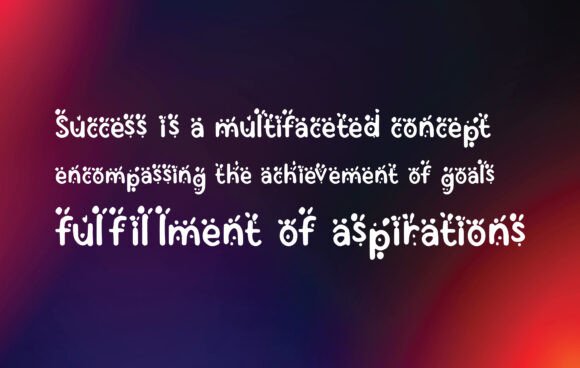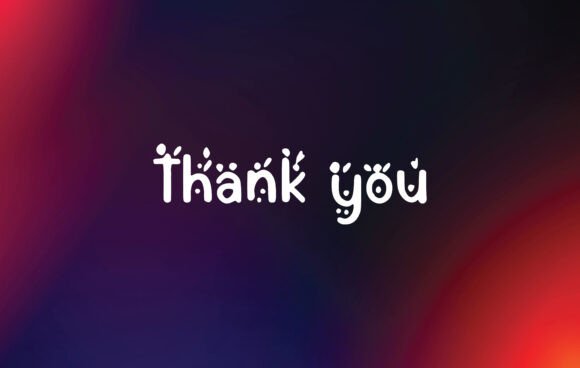
Introducing Heliconia Font: Elevate Your Creative Projects with Style and Versatility
In the world of typography, a great font can make all the difference in elevating your creative projects from ordinary to extraordinary. If you’re a designer, crafter, or DIY enthusiast looking for a font that combines style, versatility, and readability, look no further than Heliconia Font. This beautifully crafted font is designed to become a go-to favorite in your collection, offering the perfect blend of aesthetics and functionality to enhance any project.
A Font for Every Creative Need
Heliconia Font is incredibly versatile, making it suitable for a wide range of applications. Whether you’re designing:
• Magazine headlines that grab attention
• T-shirts and apparel with a professional touch
• Social media posts that stand out in the feed
• Branding materials that reflect your company’s personality
• Wedding invitations and greeting cards with a personal touch
This font fits right in, providing a seamless and cohesive look that elevates your work. Its ease of readability makes it perfect for both titles and body text, ensuring that your message is conveyed clearly and effectively.
Key Features of Heliconia Font
So, what makes Heliconia Font so special? Here are some of its key features:
• Easy to Read: The font’s clear and clean design ensures that your text is easy to read, even at smaller sizes.
• Versatile: Heliconia Font works beautifully for both titles and body text, making it a great all-around choice for any project.
• Stylish: With its unique and elegant design, this font adds a touch of sophistication to any project.
• Highly Adaptable: Whether you’re working on print or digital materials, Heliconia Font adapts seamlessly to different mediums and formats.
Why Choose Heliconia Font?
With so many fonts available, why choose Heliconia Font for your creative projects? Here are a few compelling reasons:
• Save Time: With Heliconia Font, you can quickly and easily create professional-looking projects without spending hours searching for the perfect font.
• Enhance Your Brand: This font’s unique and stylish design helps you establish a consistent brand identity that sets you apart from the competition.
• Perfect for Crafters: Whether you’re creating handmade products or digital goods, Heliconia Font provides a beautiful and legible text solution.
Tips for Using Heliconia Font
To get the most out of Heliconia Font, here are some tips for using it effectively in your creative projects:
• Experiment with Sizes: Try using Heliconia Font in different sizes to create visual hierarchy and emphasis in your designs.
• Pair it with Other Fonts: Combine Heliconia Font with other fonts to create a unique and eye-catching typography scheme.
• Use it Consistently: To establish a strong brand identity, use Heliconia Font consistently across all your marketing materials and creative projects.
Heliconia Font is a versatile and stylish font that’s perfect for designers, crafters, and DIY enthusiasts looking to elevate their creative projects. With its ease of readability, adaptability, and unique design, this font is sure to become a favorite in your collection. Whether you’re working on print or digital materials, Heliconia Font provides the perfect blend of style and functionality to make your projects stand out. So why wait? Give Heliconia Font a try today and discover the difference it can make in your creative work!